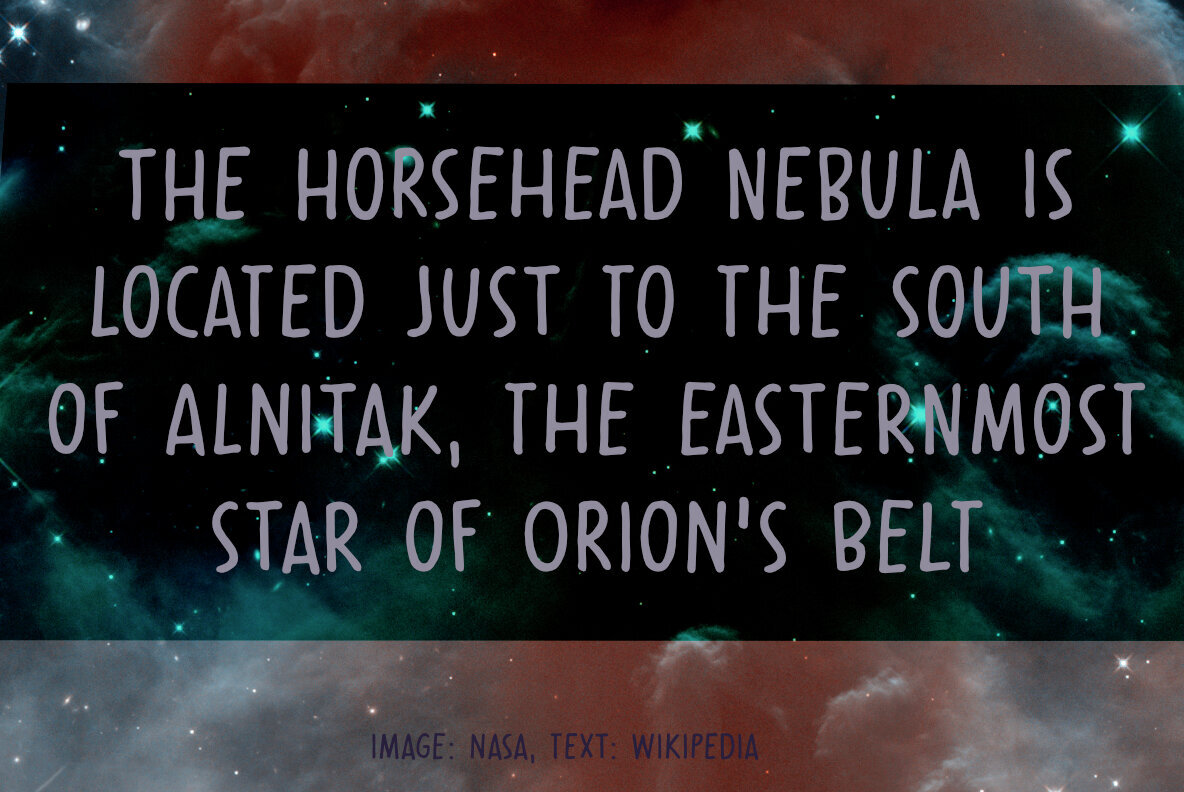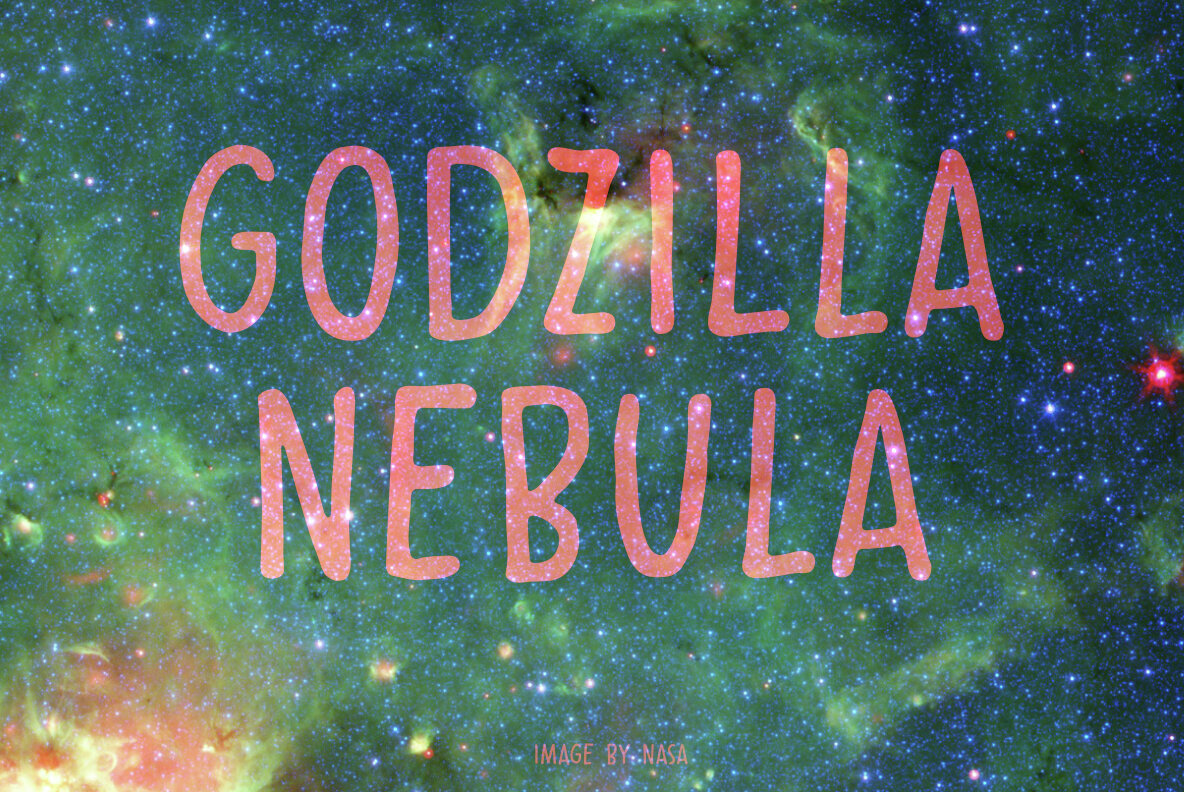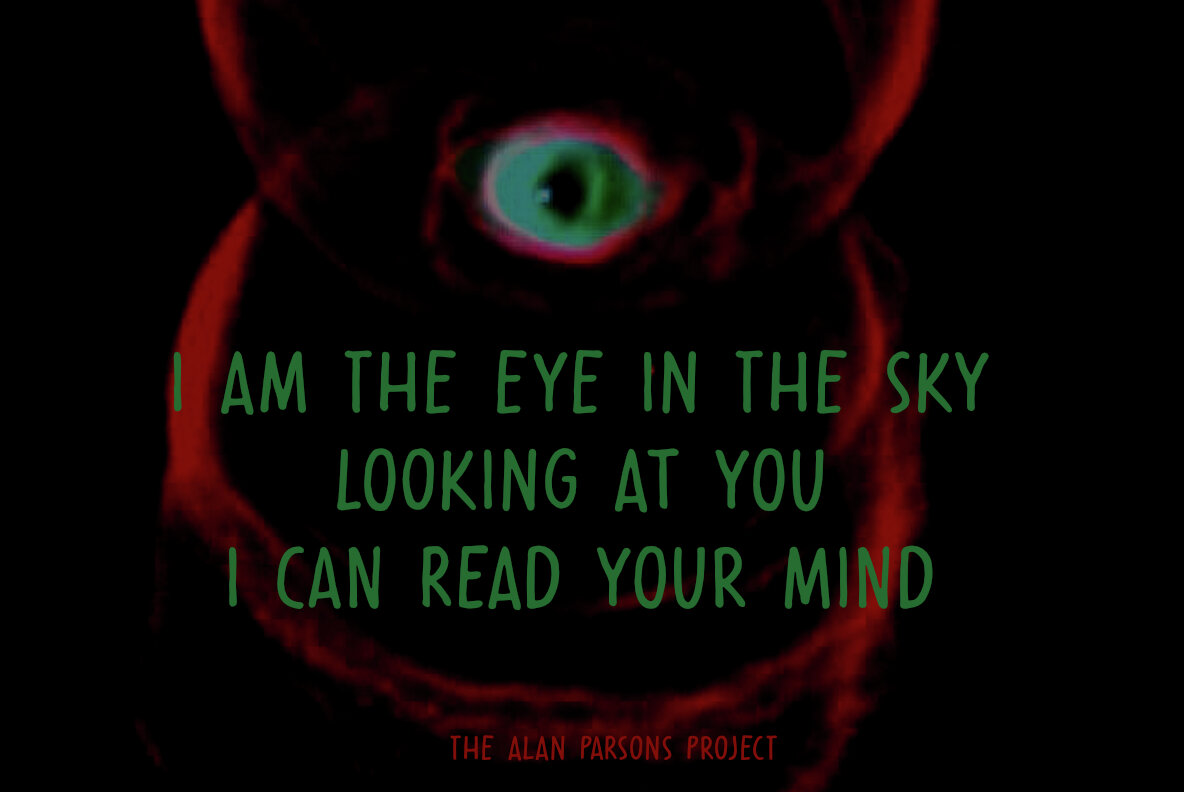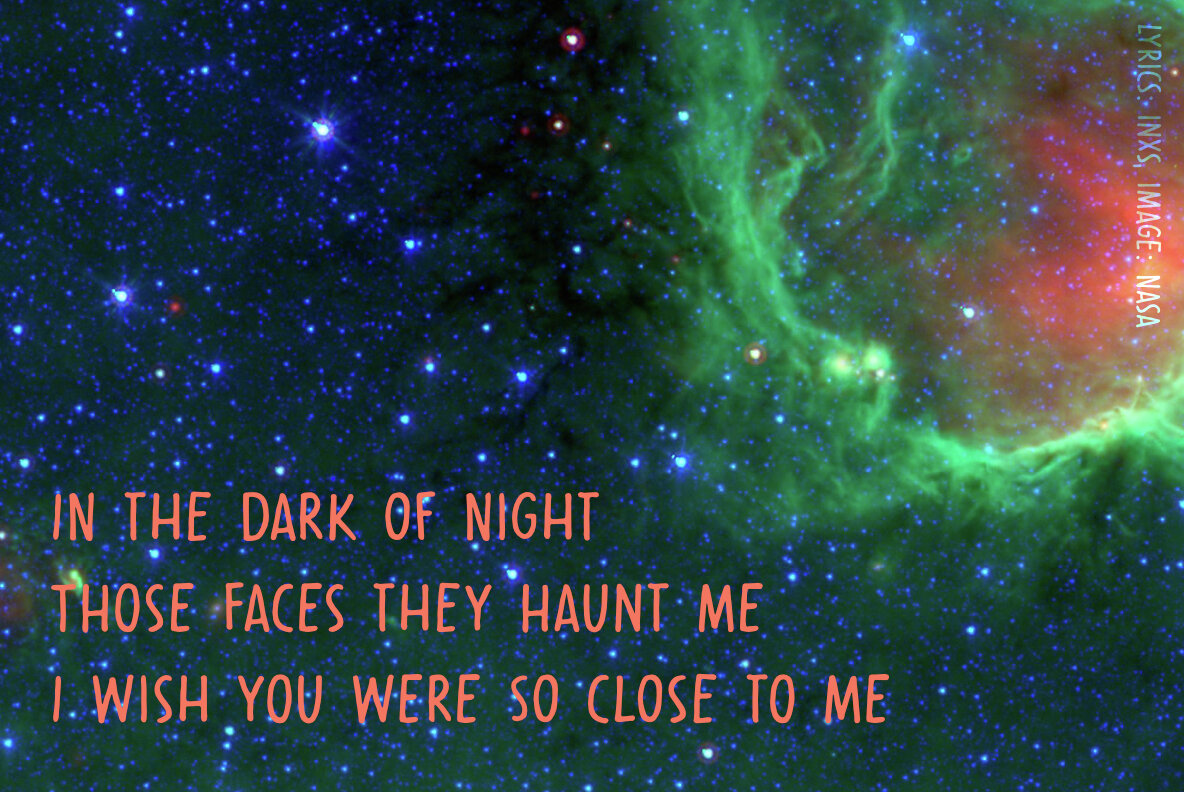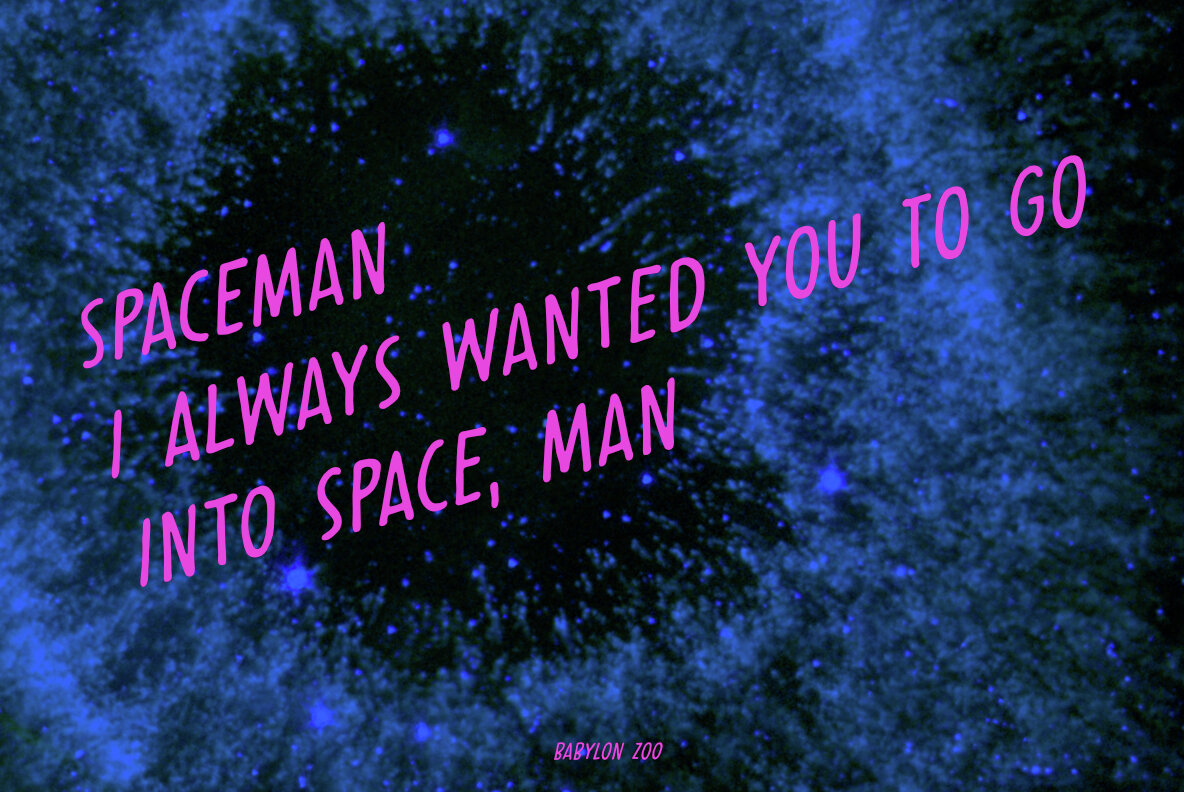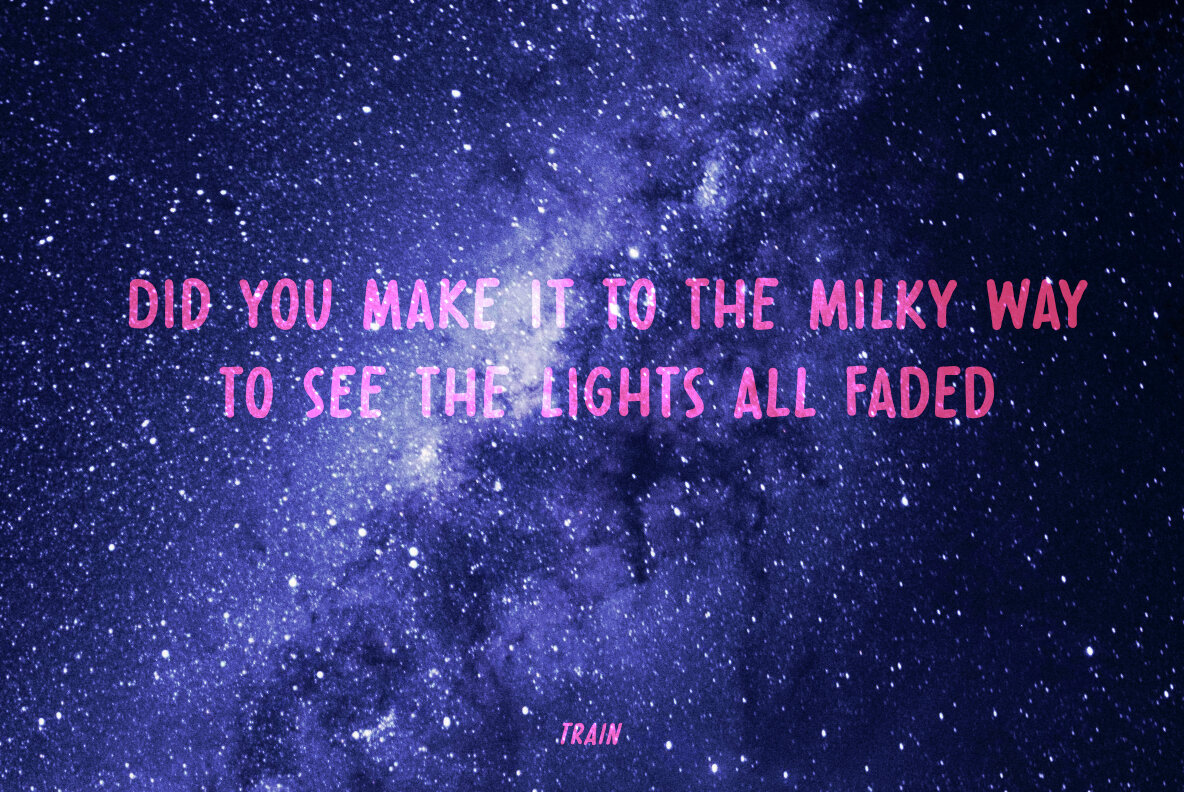
Cosmic Dust Font
Cosmic Dust is dust that occurs in outer space or has fallen onto earth. Cosmic Dust font isn’t a dusty or celestial affair, no, it is a nice and useful font I made with a Sharpie pen. It is a little uneven, a little wobbly, but comes with a lot of character. Use it for your book covers, product packaging or posters. Cosmic Dust comes with extensive language support and a cool set of alternates.